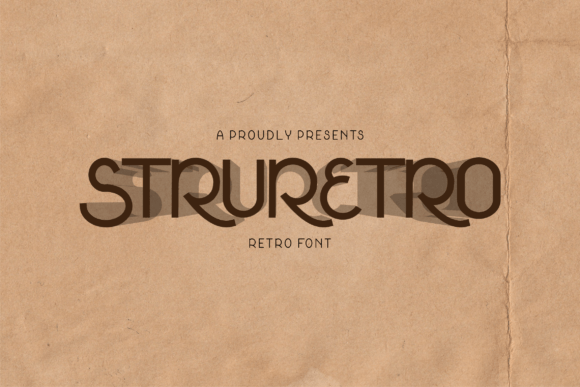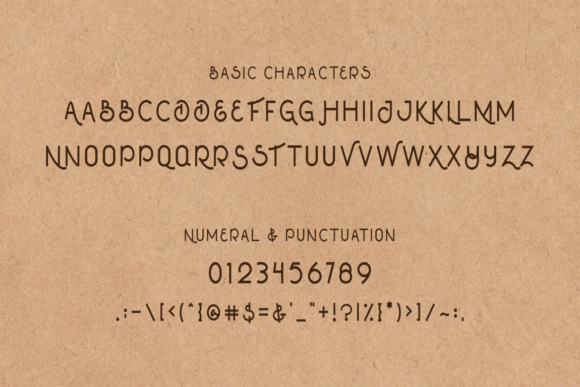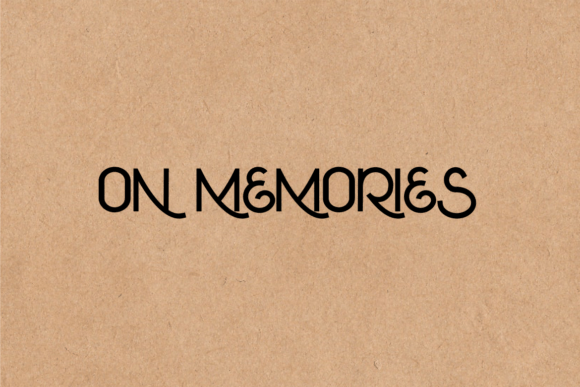
Sturetro Font: A Modern Retro Sans Serif for Branding & Logo Design
About the Sturetro Font
Experience the unique personality of Sturetro Font, a font designed for impact. Sturetro is an elegant, classy, and modern sans serif font. It’s a great font for fashion, apparel projects, signatures, album covers, logos, branding, magazines, social media, & advertisements, but also works great for other projects.
Sturetro Font Usage Examples
Sturetro Font Example